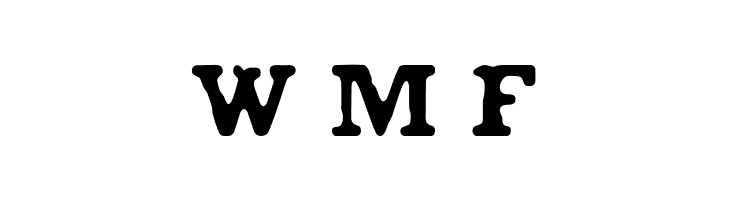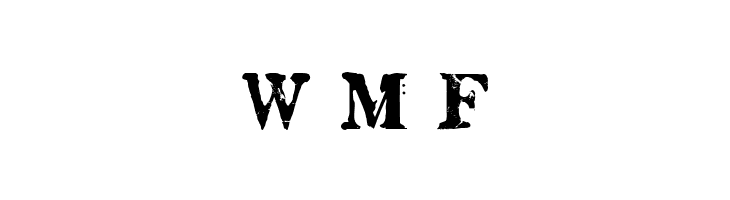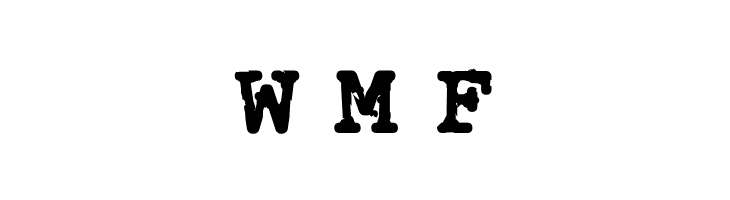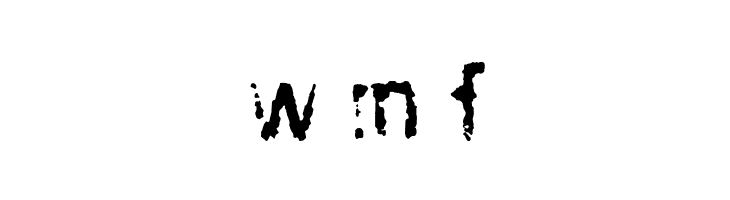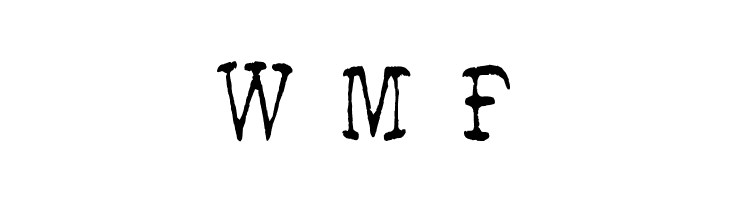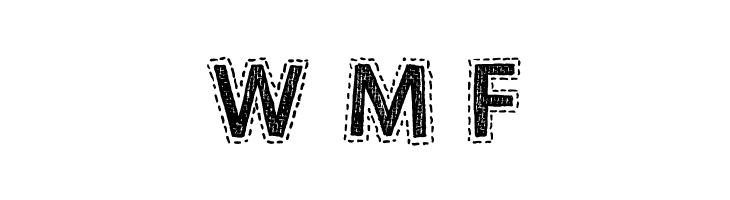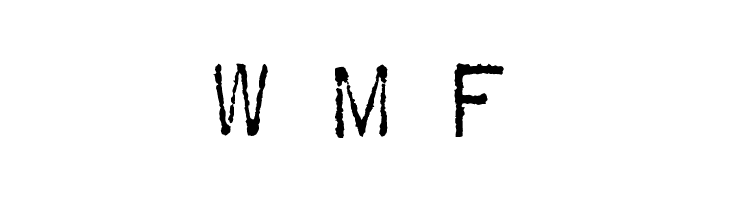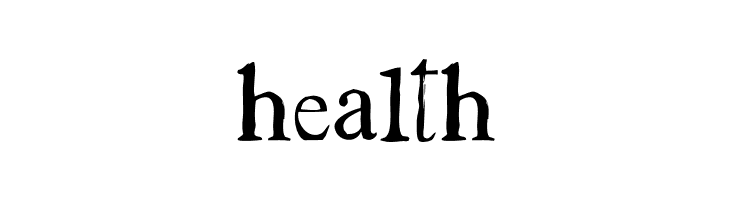
A bold, playful font with a handcrafted, vintage feel.
A bold, distressed font with a vintage, textured appearance.
A bold, textured typewriter-style font with a vintage, mechanical feel.
A rugged, distressed font with a hand-crafted, organic feel.
A distressed, vintage font with a hand-crafted, organic feel.
A playful, fabric-textured font with bold, dashed outlines.
A vintage, typewriter-style font with a distressed, handcrafted appearance.
A distressed serif font with a vintage, textured style.
A bold, rounded font with a distressed, handcrafted look.